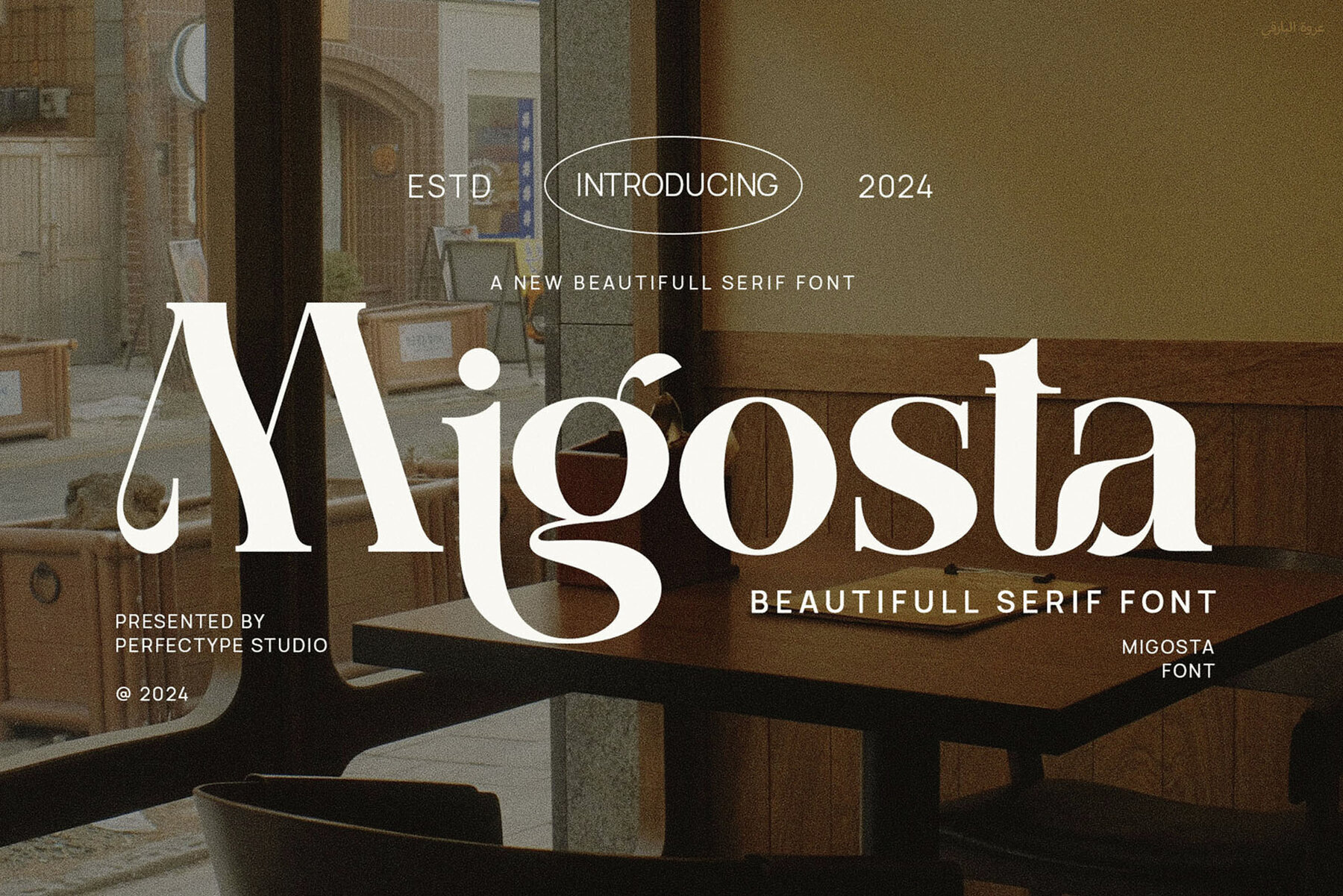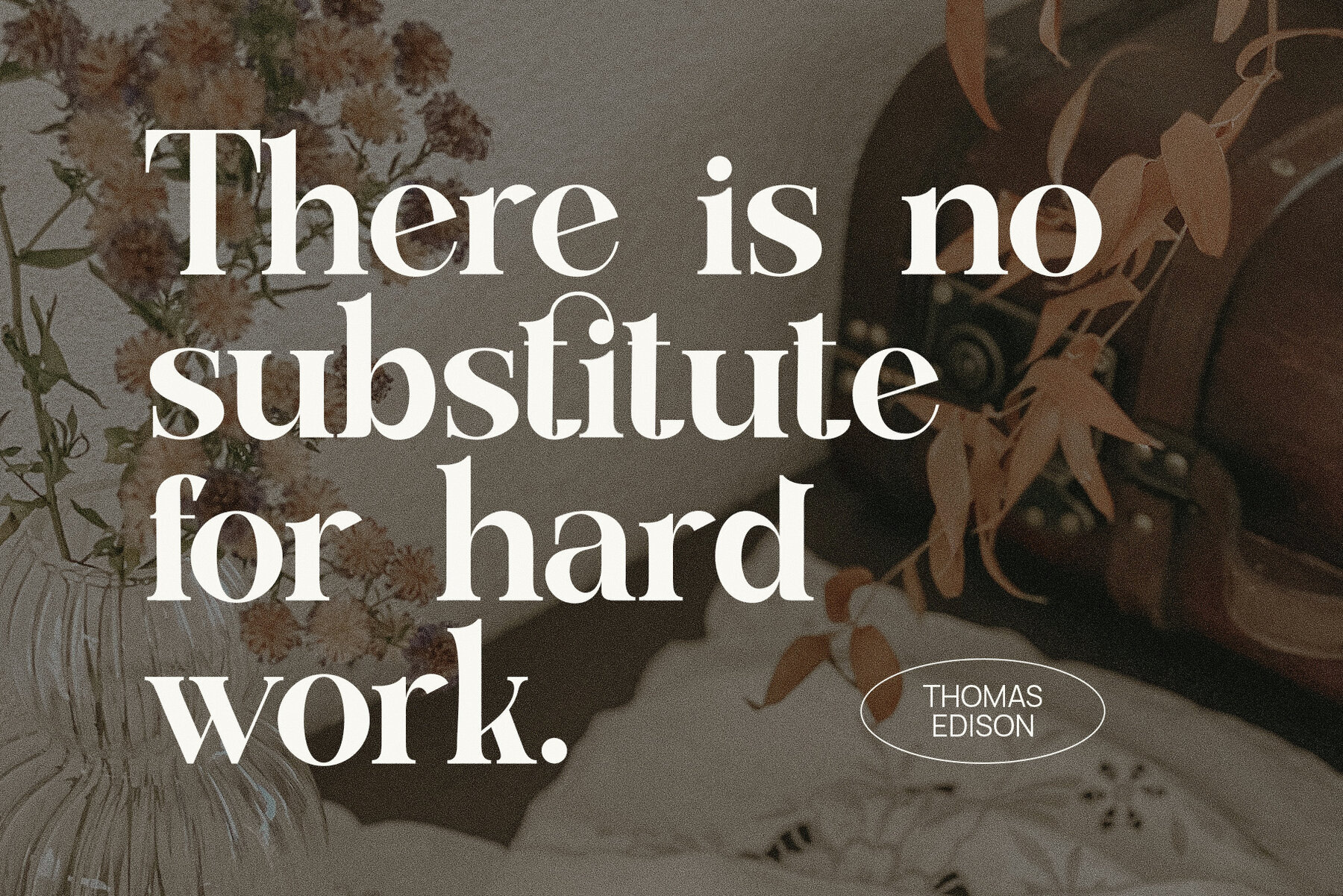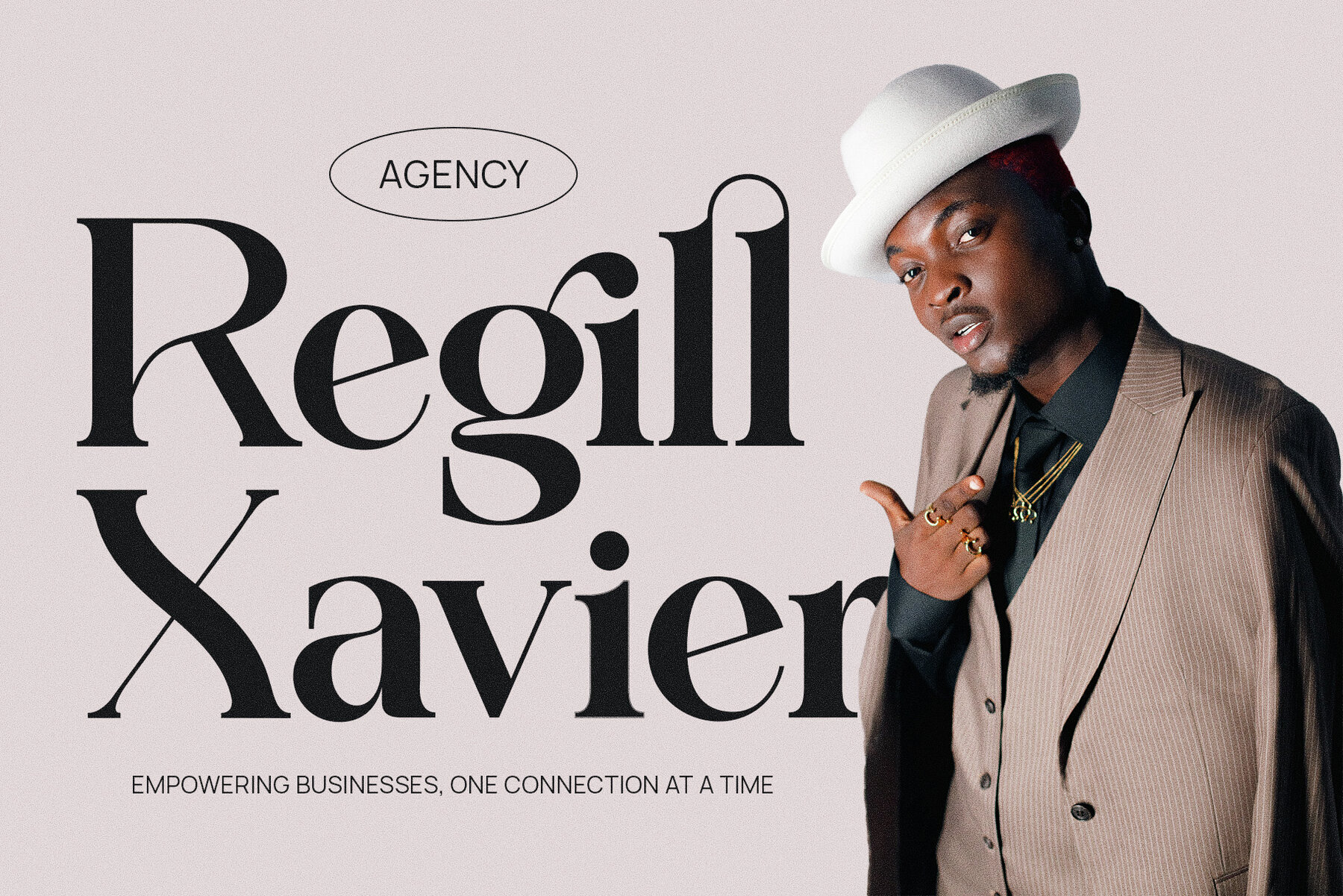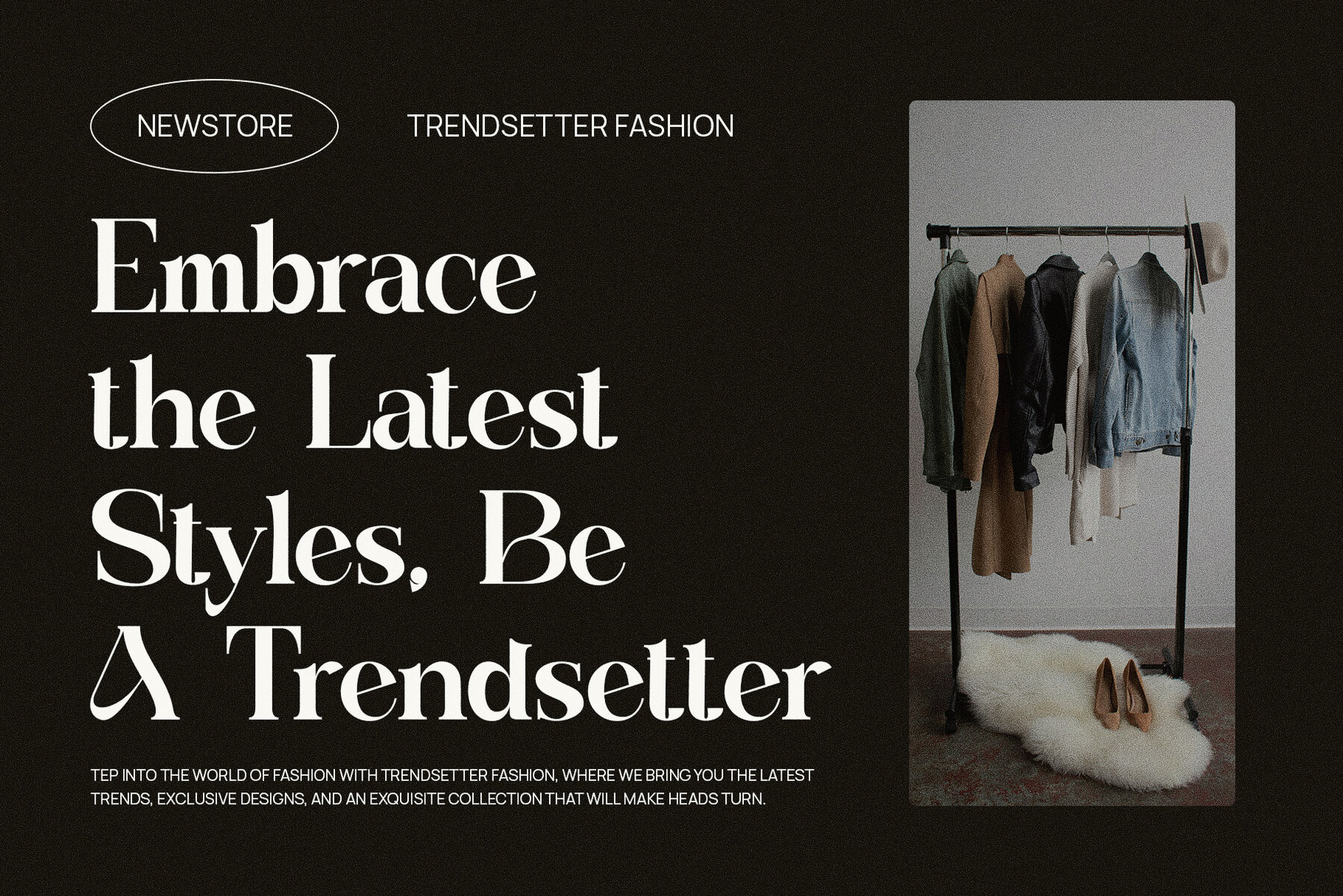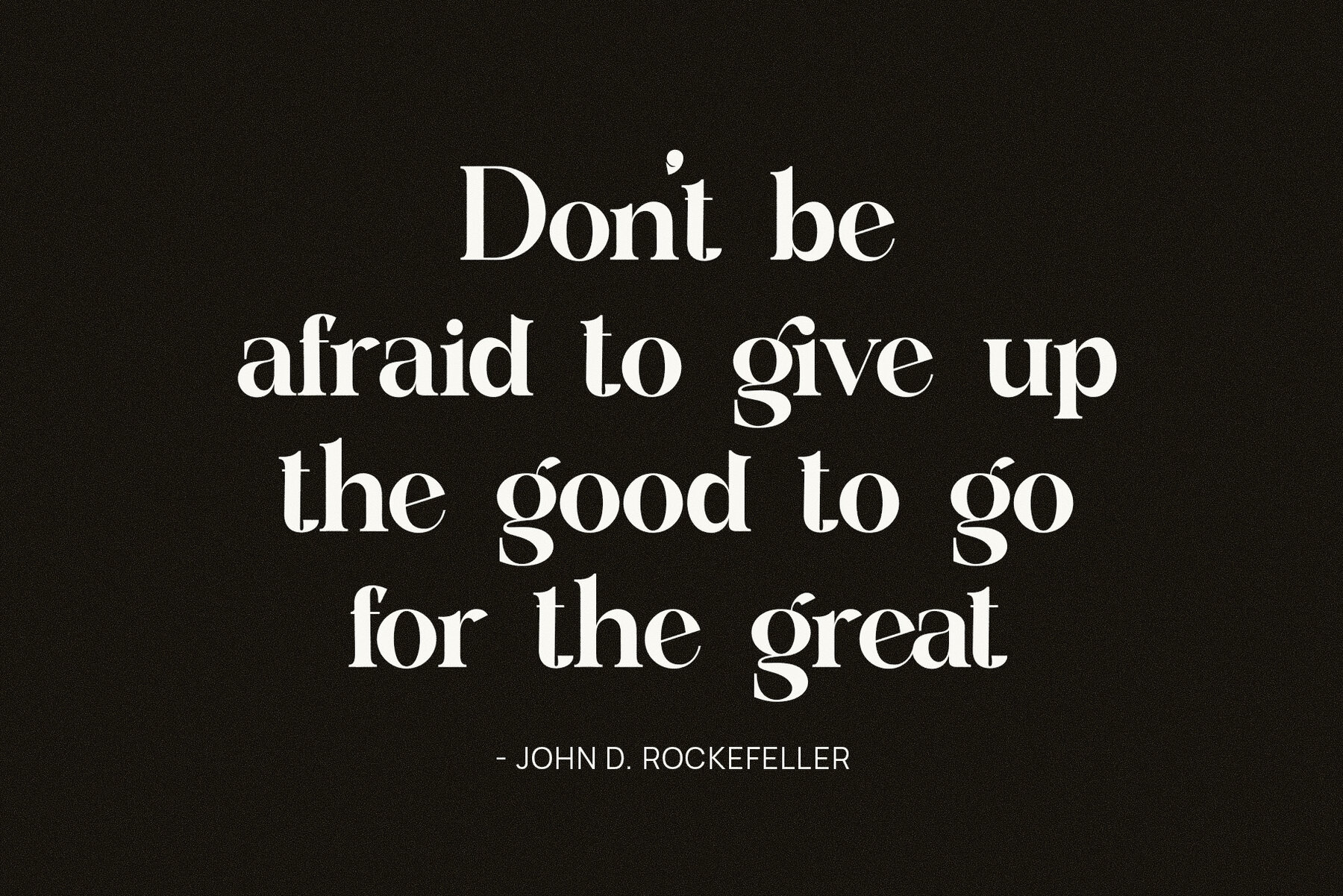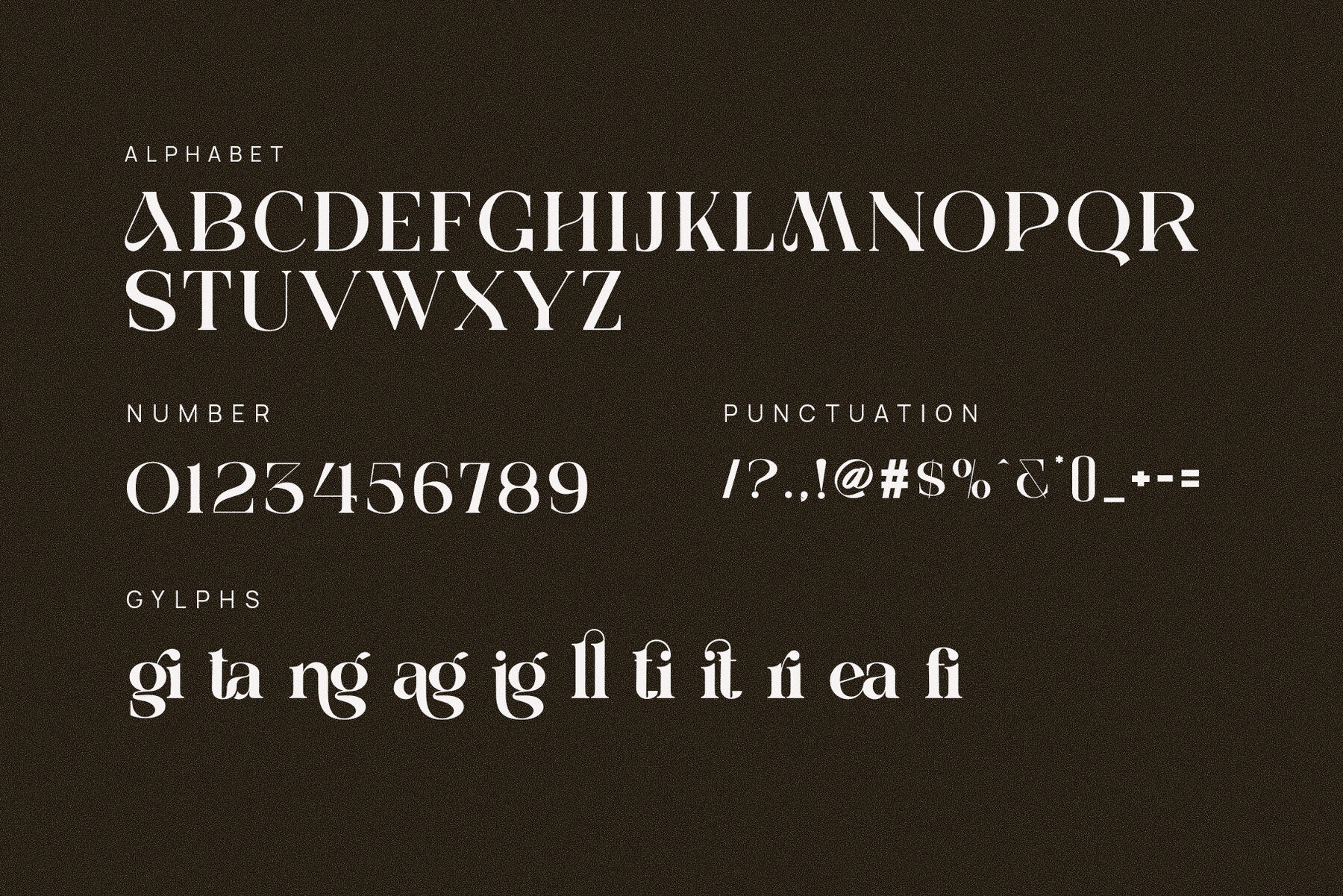
Migosta Font
Migosta
Migosta Vintage Serif Font masterfully combines the allure of vintage typography with modern design elements, creating a unique typeface that infuses both elegance and sophistication into any project. With expertly crafted serifs, Migosta delivers a distinguished and dynamic appeal, making it a versatile choice for creative endeavors that demand a touch of refinement. The font's standout ligatures seamlessly connect letters, producing a fluid and organic text flow that enhances visual harmony and artistic continuity.
Perfect for an array of applications, Migosta is ideal for luxury brand logos, editorial layouts, product packaging, and high-end magazine spreads. Its high contrast strokes provide clarity and legibility without compromising on style. The font's retro influence brings a timeless quality, allowing designers to evoke the elegance of a bygone era while crafting modern, visually appealing projects. With its captivating charm and richness, Migosta offers a perfect blend of nostalgia and contemporary sophistication, suitable for various branding and advertising materials.